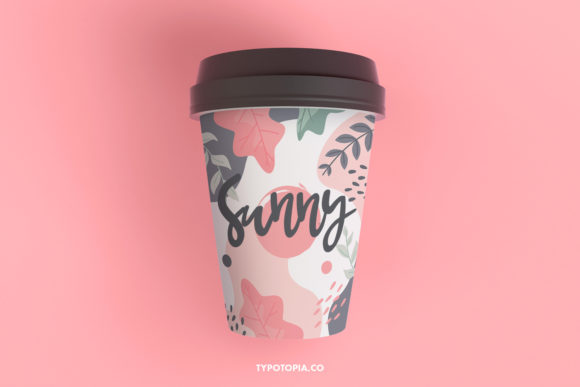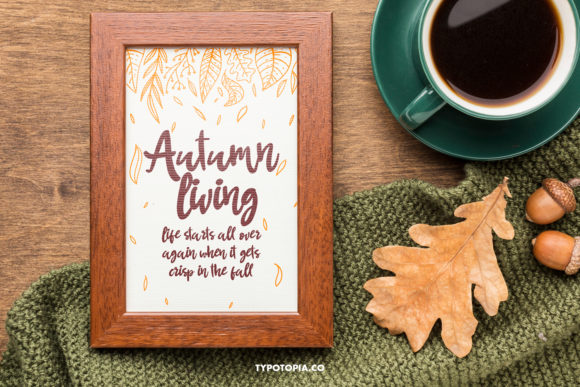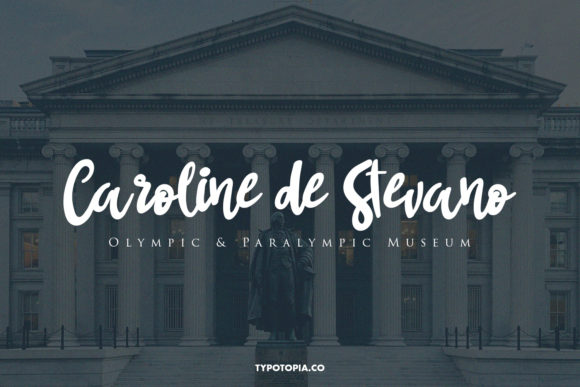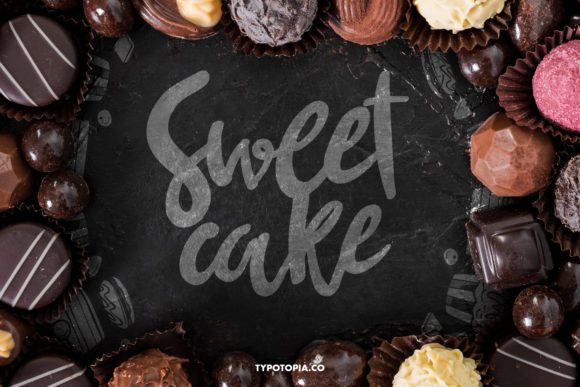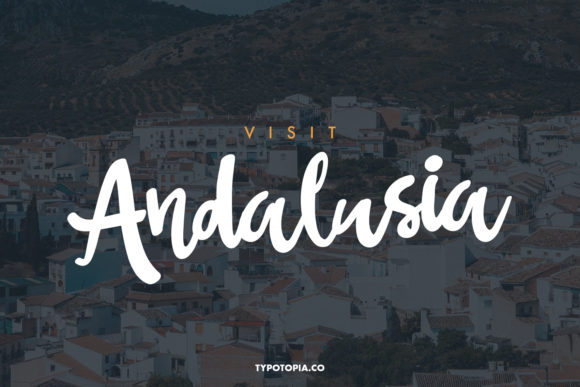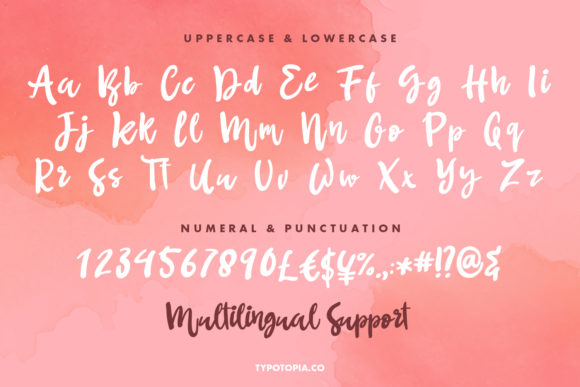
Introducing Butterfree Font: The Sweet and Casual Handwritten Font
Are you a designer or crafter looking for a font that can add a touch of sweetness and playfulness to your creative projects? Look no further than Butterfree Font! This casual and sweet handwritten font is perfect for brightening up any design, from invitations and greeting cards to branding and packaging.
The Characteristics of Butterfree Font
Butterfree Font is a beautifully crafted handwritten font that boasts a lovely flow and a charming, informal feel. Its sweet and casual nature makes it perfect for a wide range of design applications, from kids’ projects and party invitations to fashion and lifestyle branding.
One of the standout features of Butterfree Font is its unique and distinctive lettering style. Each letter is carefully crafted to have a personal and hand-written feel, making it perfect for designs that require a touch of warmth and personality.
What Makes Butterfree Font So Versatile?
Butterfree Font is an incredibly versatile font that can be used in a wide range of design applications. Here are just a few examples of how you can use this beautiful font:
- Invitations and Greeting Cards: Add a touch of sweetness and whimsy to your invitations and greeting cards with Butterfree Font. Perfect for baby showers, birthday parties, and other celebrations!
- Branding and Packaging: Use Butterfree Font to add a playful and charming touch to your branding and packaging. Perfect for lifestyle, fashion, and beauty brands!
- Kids’ Projects: Butterfree Font is perfect for kids’ projects, such as educational materials, activity sheets, and children’s book illustrations.
- Digital Products: Use Butterfree Font to create eye-catching digital products, such as printable art, planners, and journals.
Why Choose Butterfree Font?
So why choose Butterfree Font over other fonts? Here are just a few reasons why designers and crafters love this beautiful font:
- Unique and Distinctive: Butterfree Font has a unique and distinctive lettering style that will set your designs apart from the crowd.
- Easily Readable: Despite its playful and informal feel, Butterfree Font is easily readable, even at small sizes.
- Highly Versatile: As mentioned earlier, Butterfree Font can be used in a wide range of design applications.
In conclusion, Butterfree Font is a beautiful and versatile handwritten font that is perfect for designers and crafters looking to add a touch of sweetness and playfulness to their creative projects. With its unique and distinctive lettering style, easily readable text, and highly versatile nature, Butterfree Font is sure to become a favorite in your font library. So why wait? Download Butterfree Font today and start brightening up your designs!